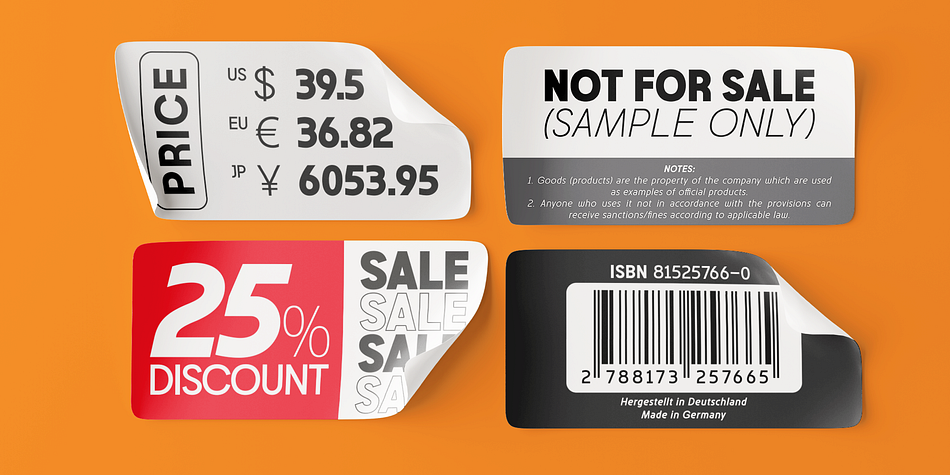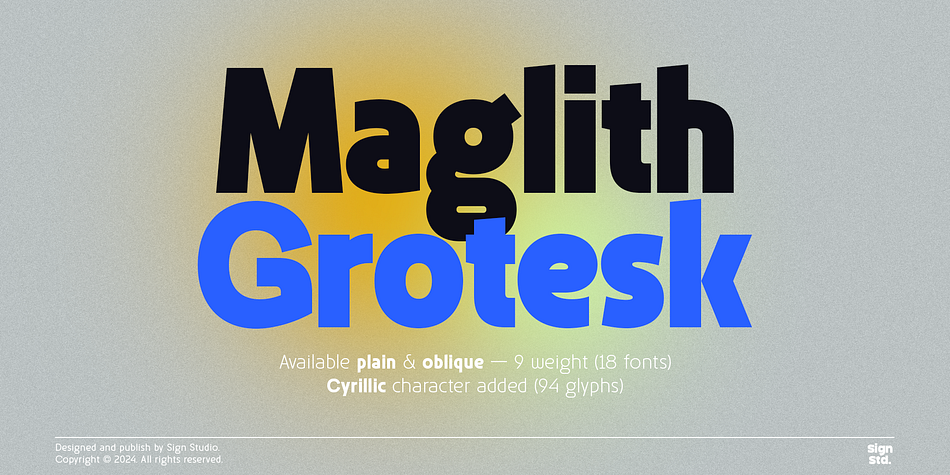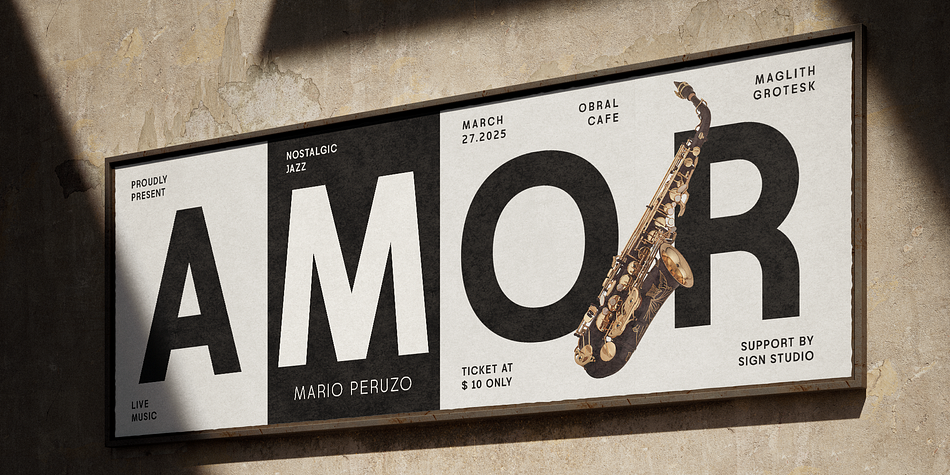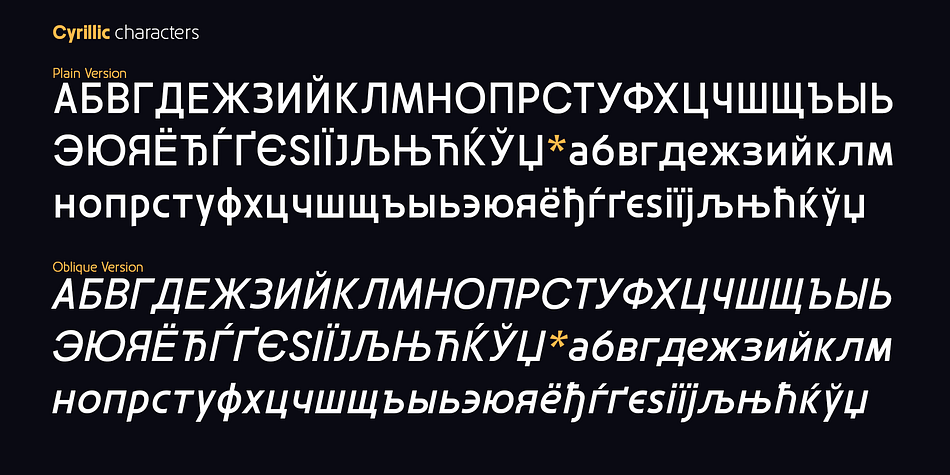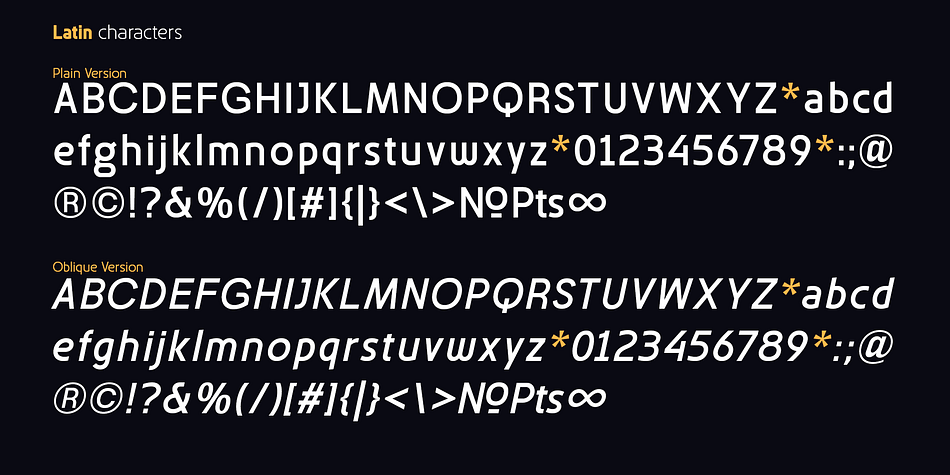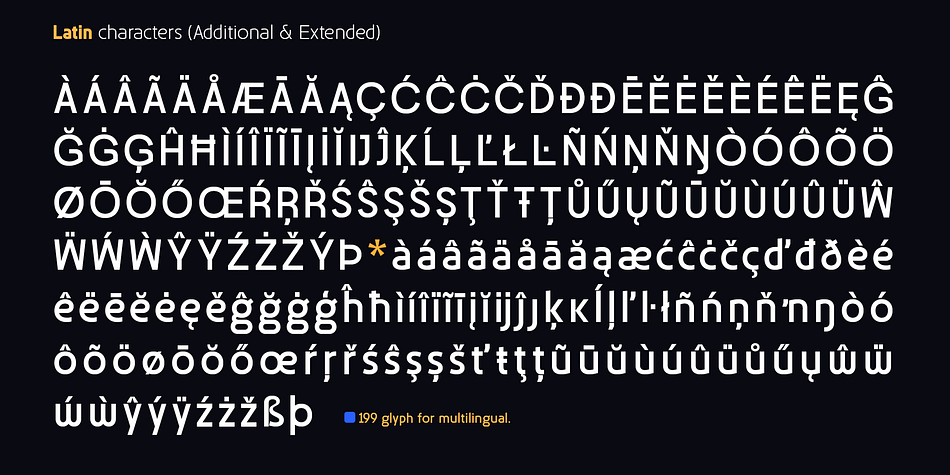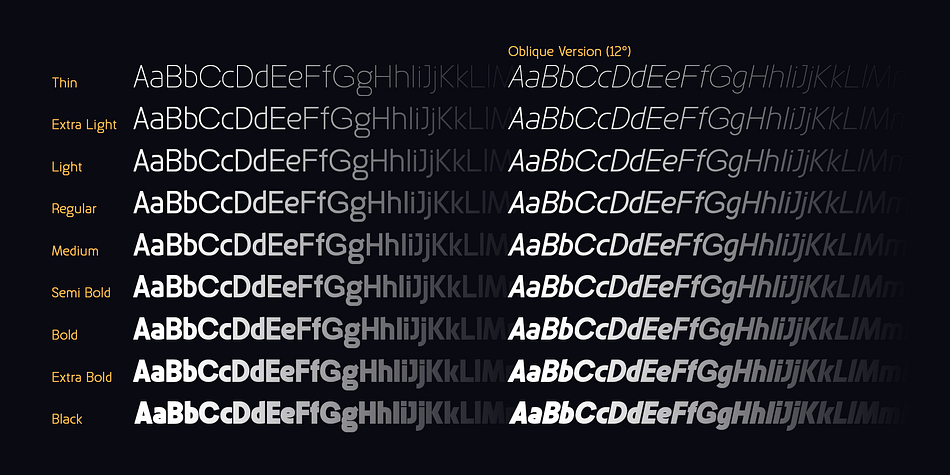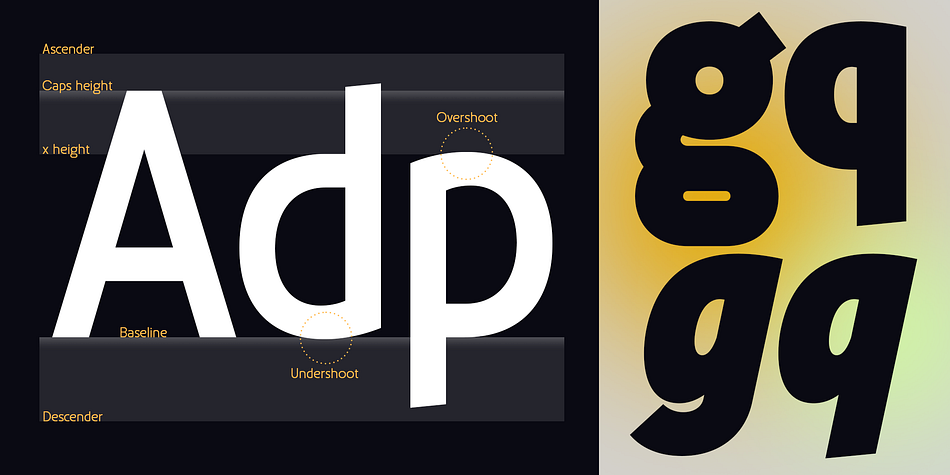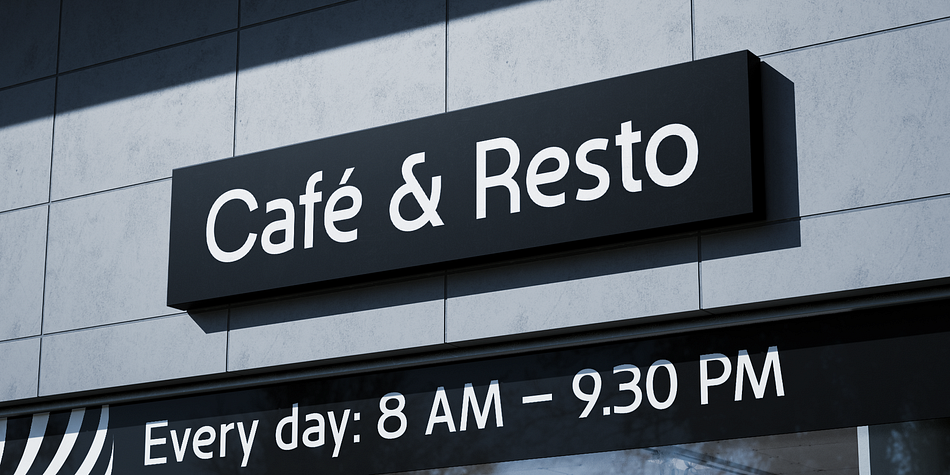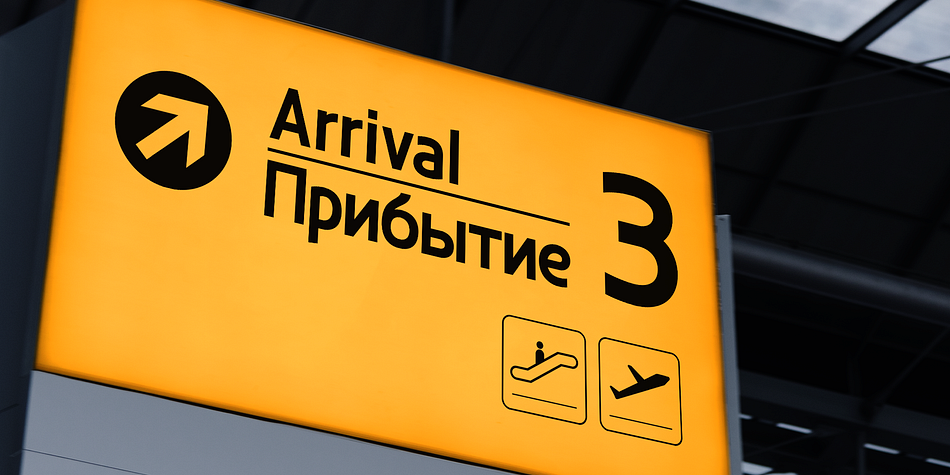
Maglith Grotesk
Maglith Grotesk is a sans serif font family. This typeface has eighteen styles and was published by Sign Studio.
Maglith Grotesk is a modern minimalist design typeface with a humanistic appearance and can be dynamic with various needs. This is a versatile font family. There are 9 thicknesses, each of which has an oblique version that has a 12 degree slope, font which is suitable for use in the branding design process. Maglith Grotesk comes in an elegant and refined style with a high level of readability. There are a total of 499 glyphs equipped with Cyrillic characters covering more than 90 languages. Variable thicknessto provide many options in the typography design process.